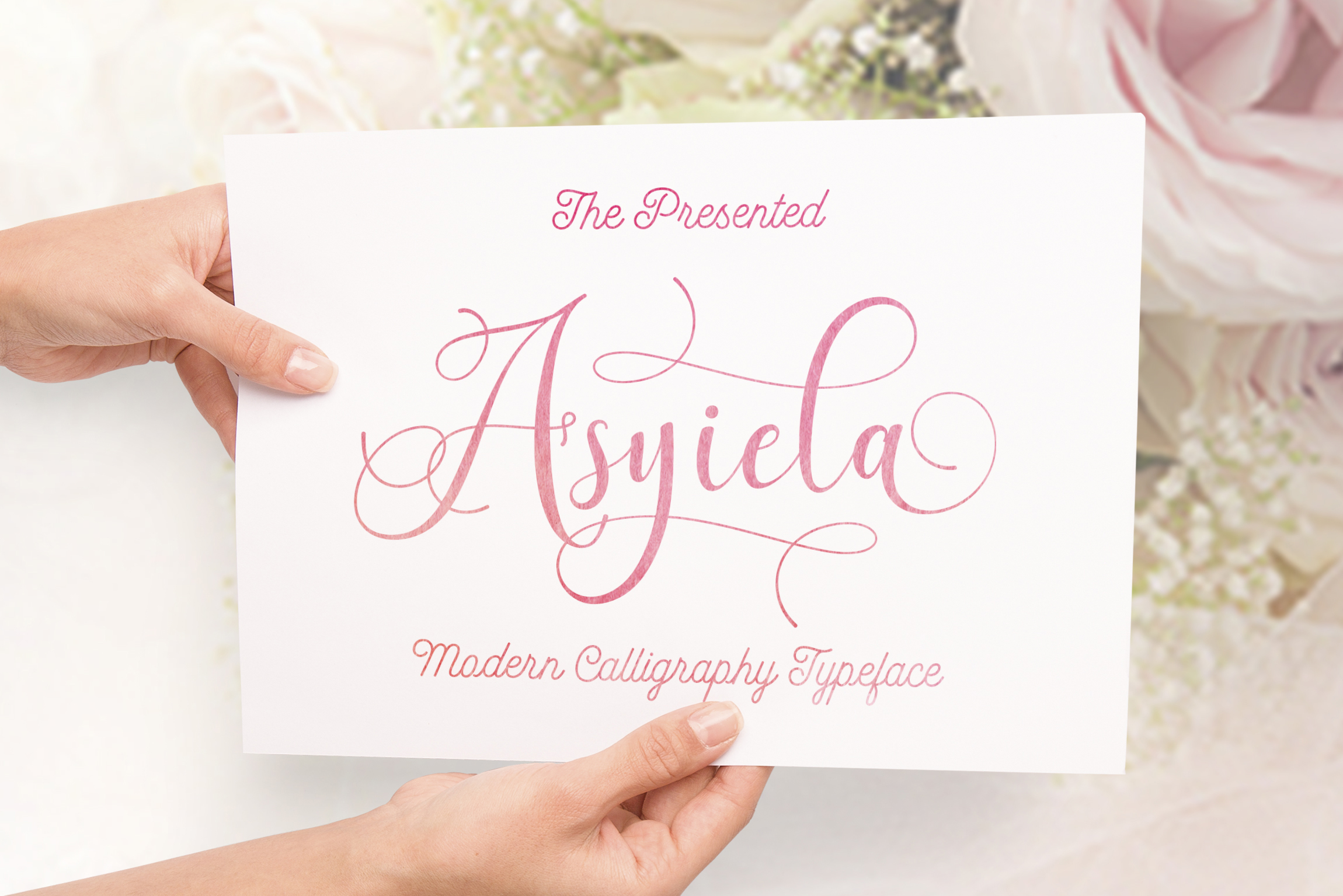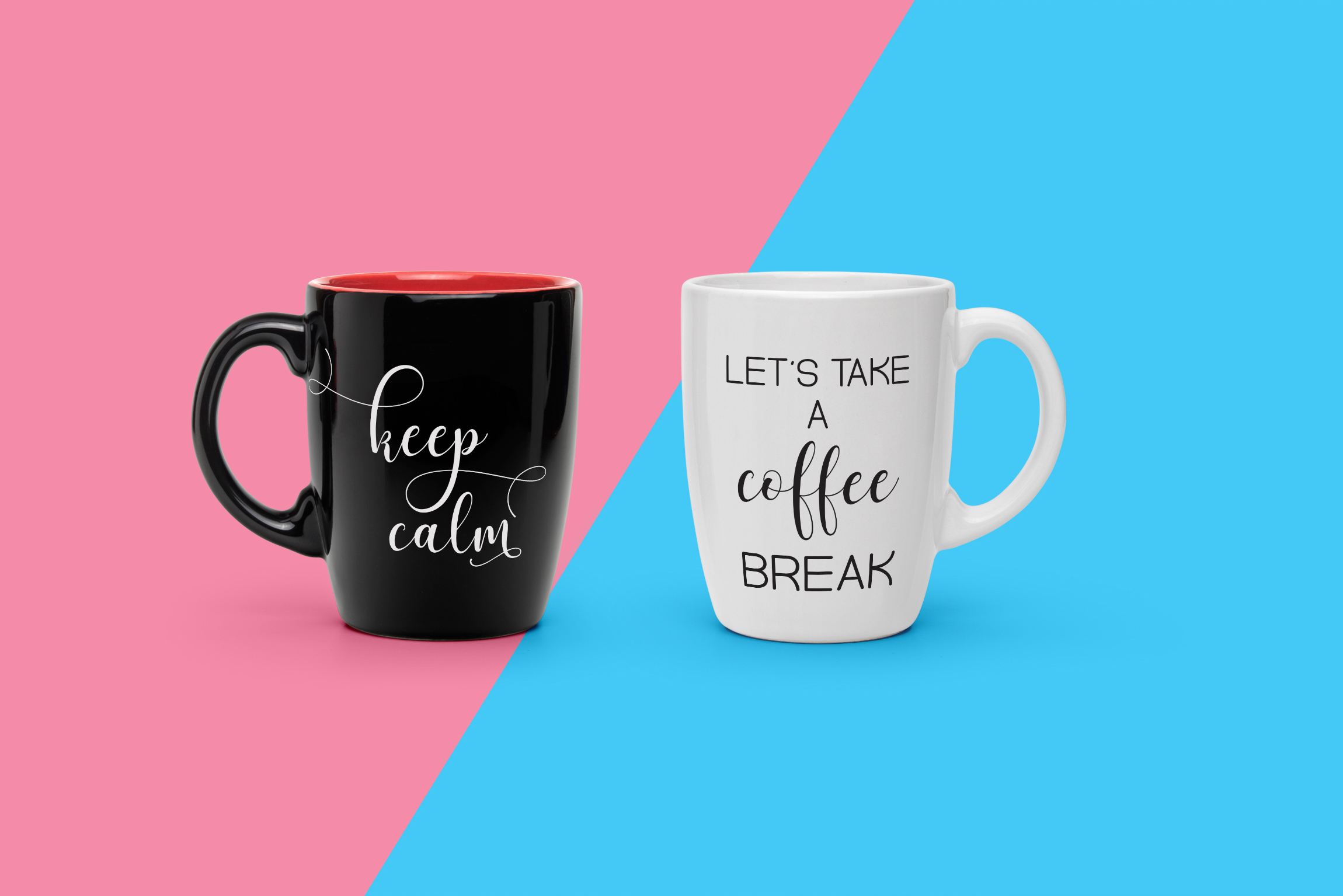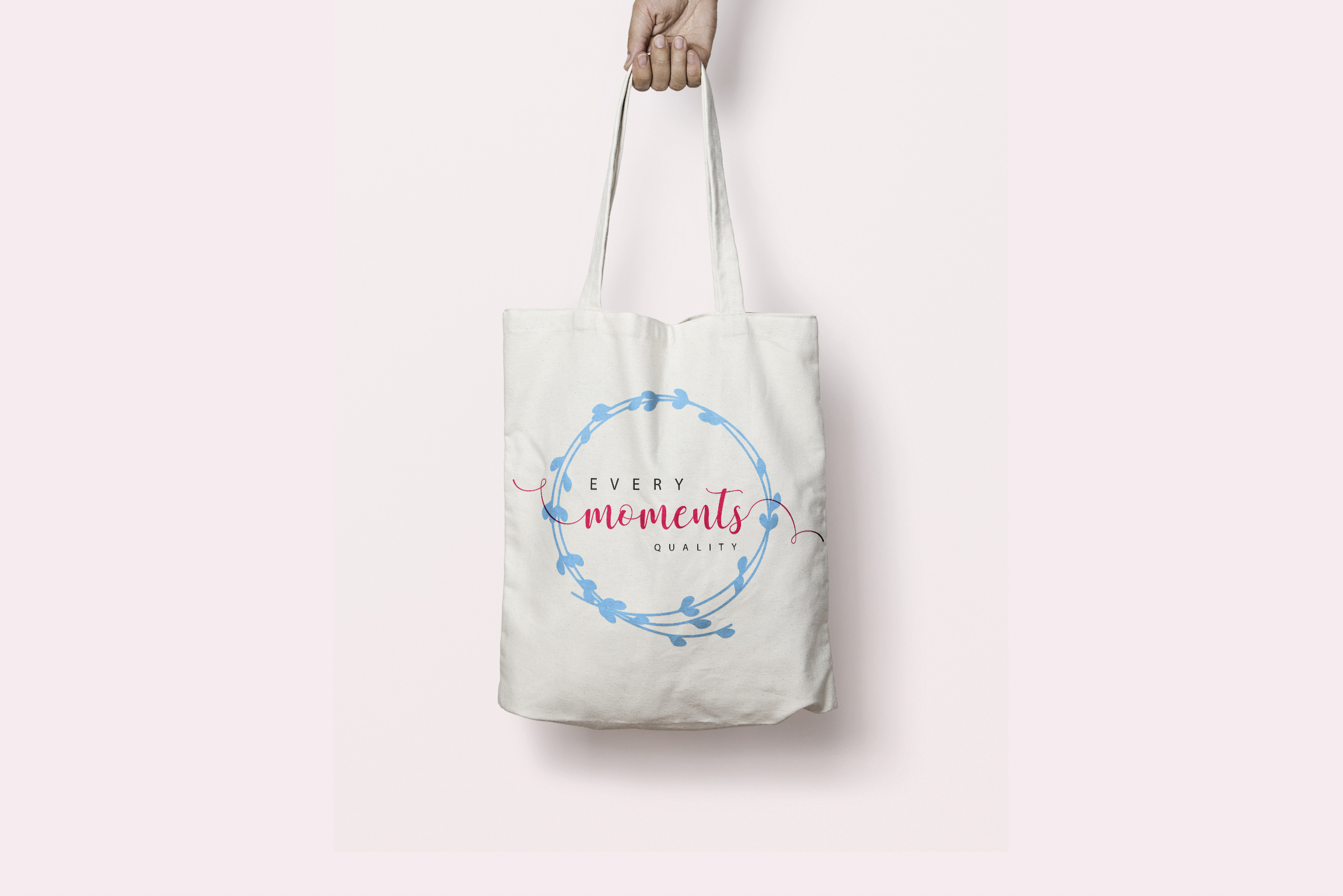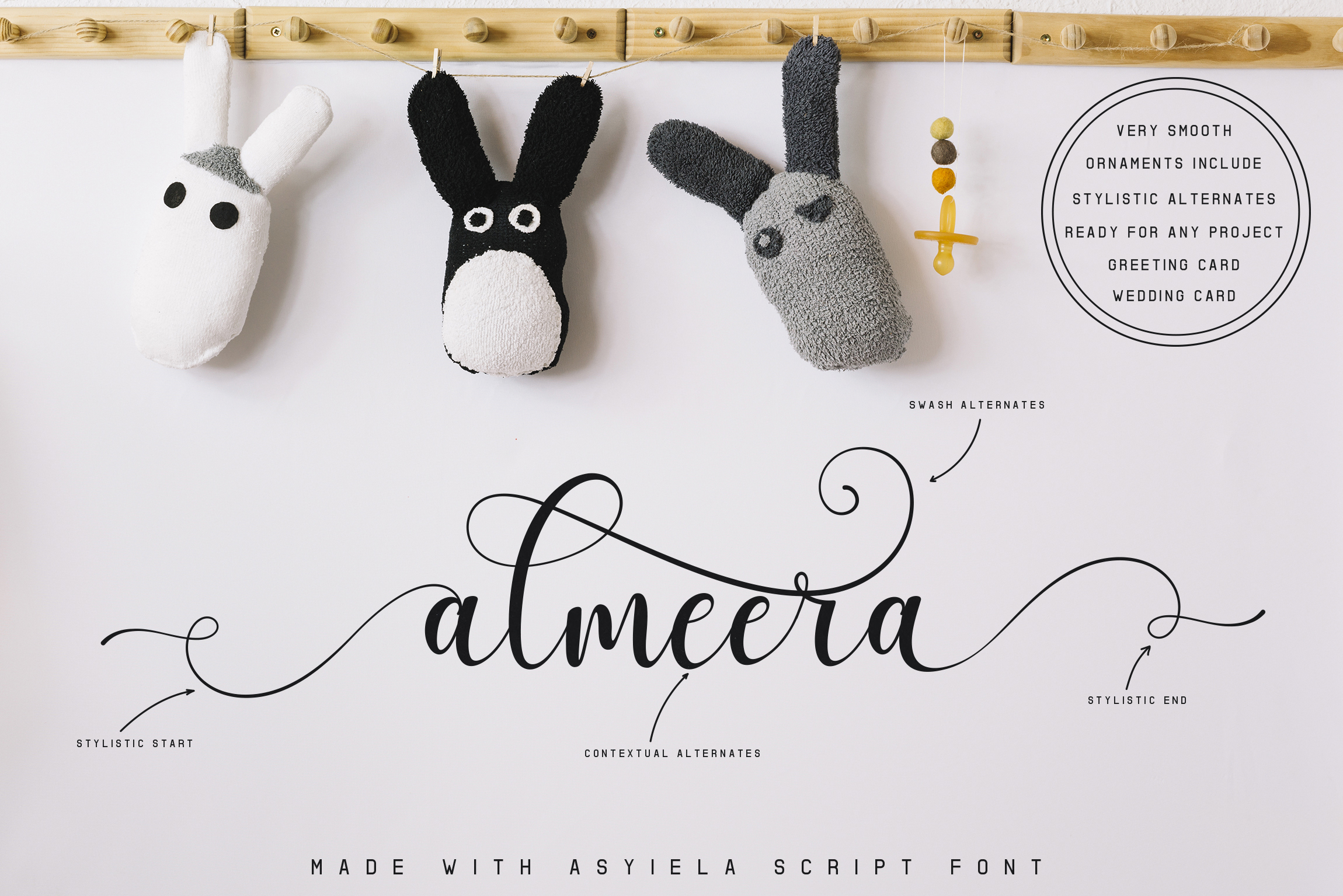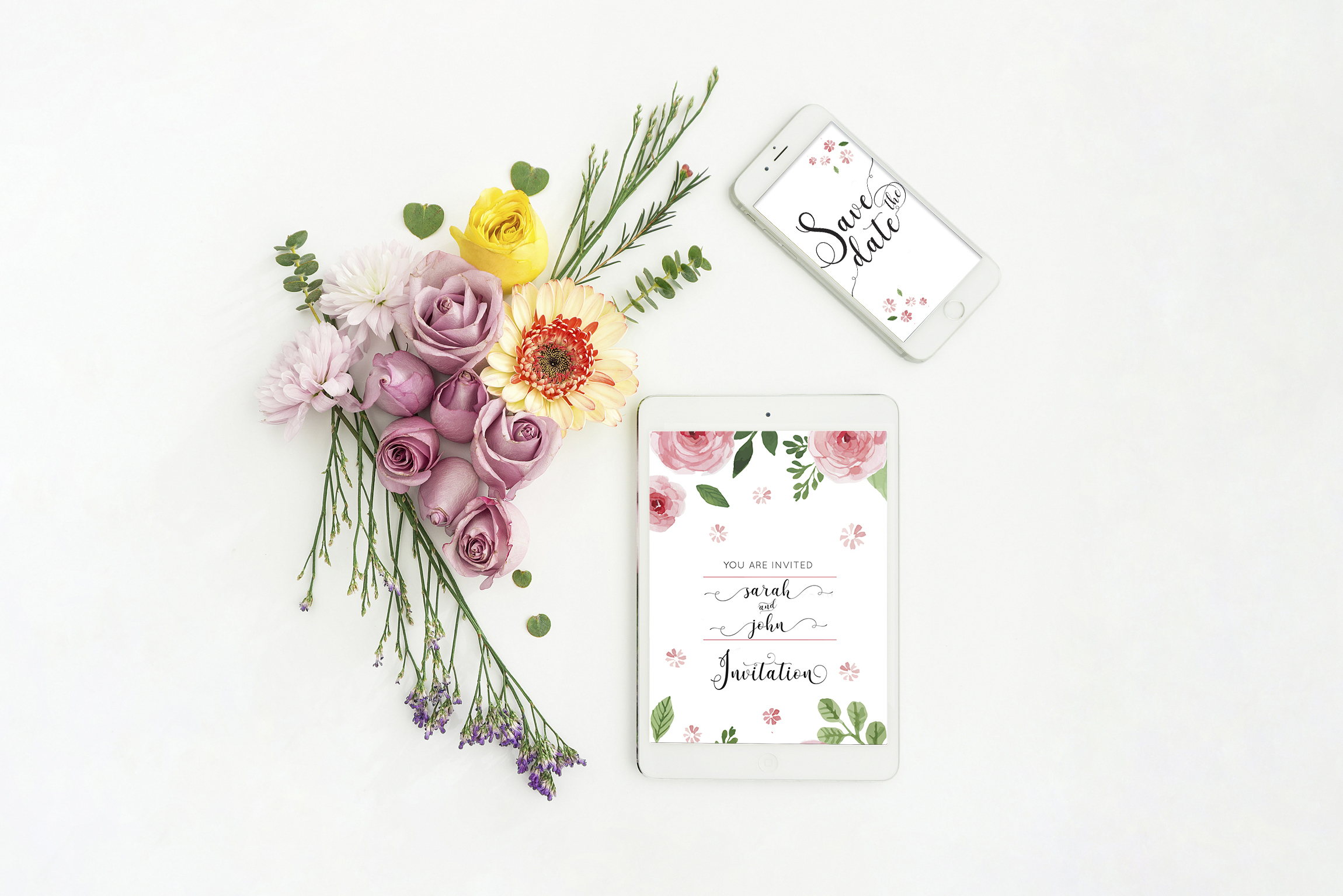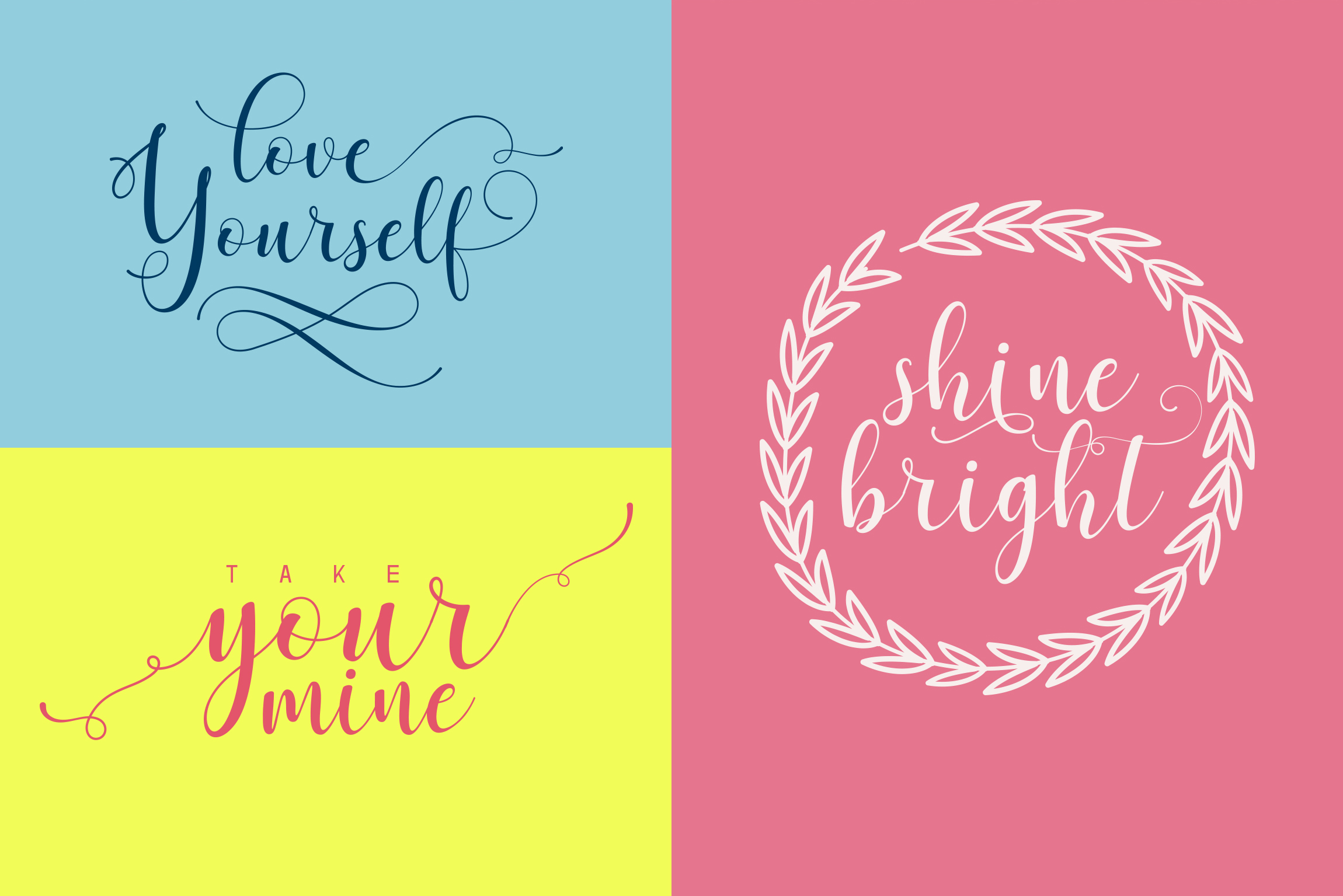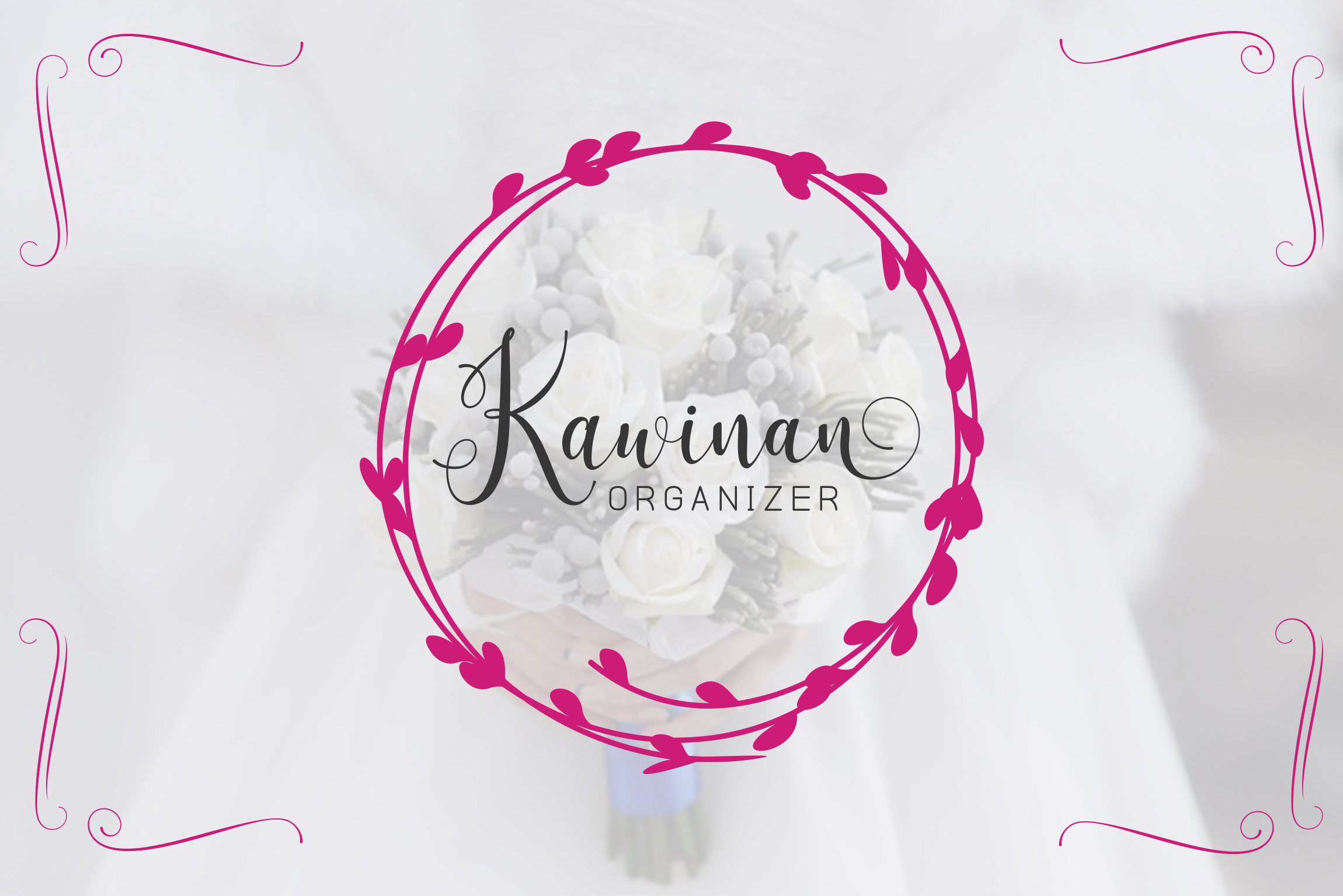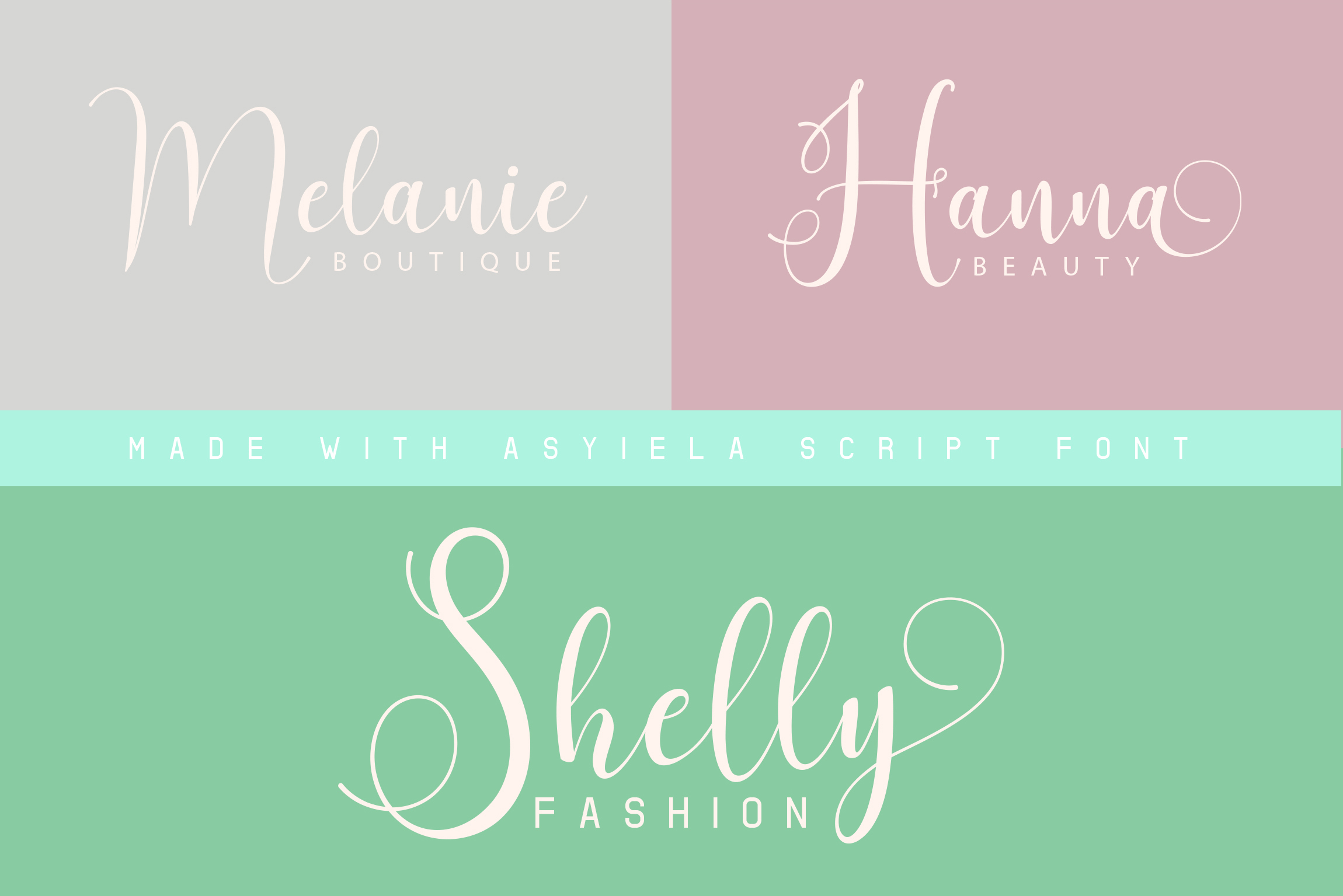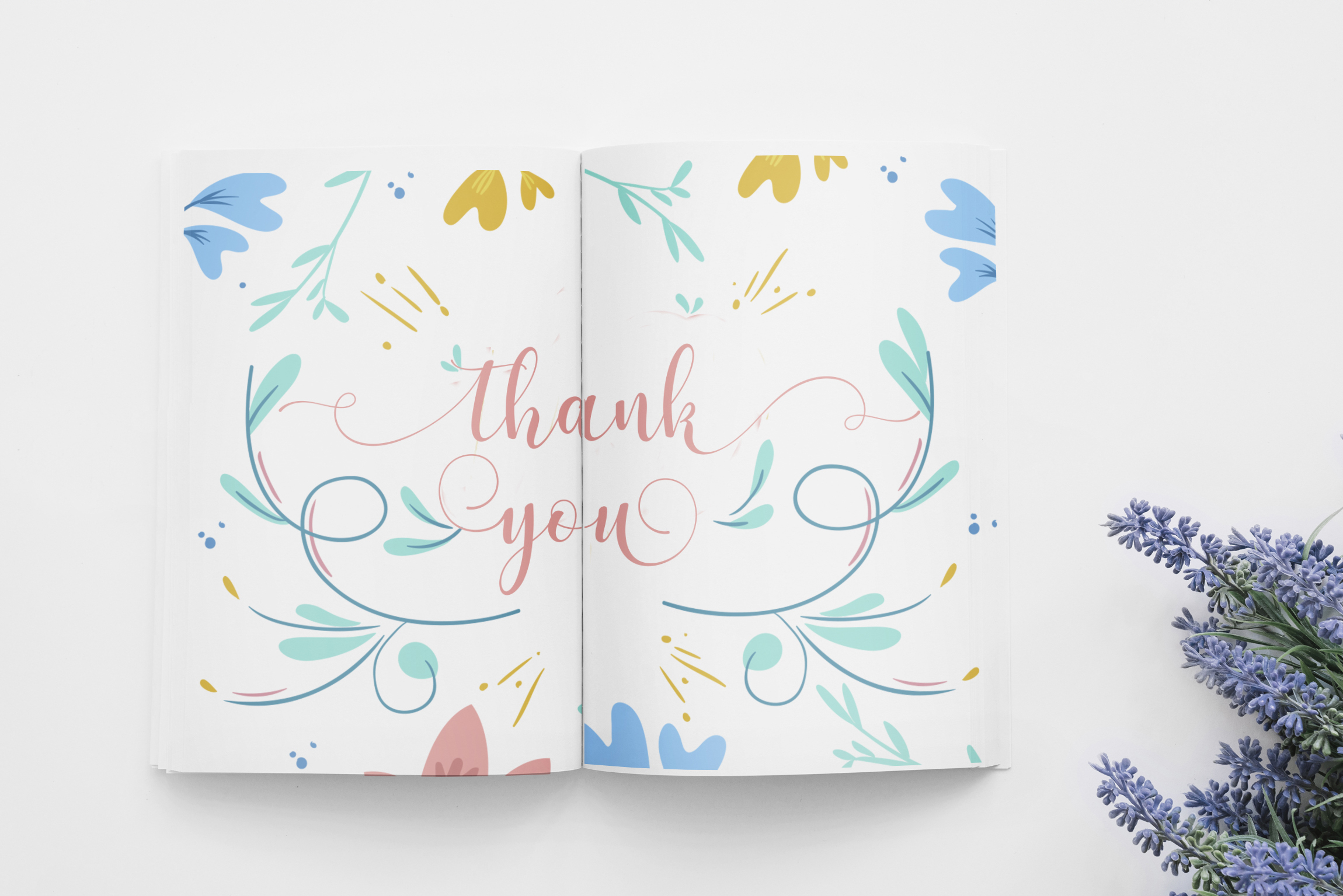
Asyiela Font
About Asyiela Font
Asyiela is a gorgeous script font made with love; both elegant and modern, this font looks at home in a wide range of creative project types! This display script is great for feminine designs, and comes with tons of extras.